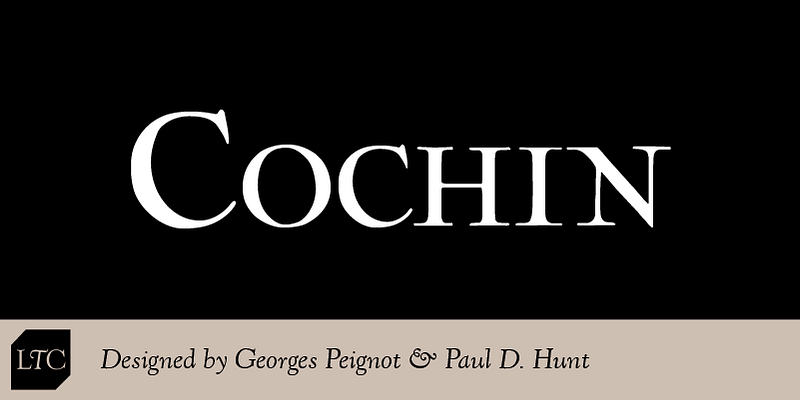
LTC Nicholas Cochin Pro Font Free Download is an elegant, timeless serif typeface that combines classic style with contemporary functionality. Featuring flowing curves and distinctive letterforms, this font is perfect for projects requiring sophistication, such as high-end branding, editorial design, invitations, luxury packaging, and more.
LTC Nicholas Cochin Pro Font Free Download brings a touch of refinement and class to your typography with its well-balanced proportions and smooth, elegant strokes. Its graceful, traditional design makes it ideal for projects that seek to evoke a sense of luxury, professionalism, and quality.
The font works beautifully in both large display settings and smaller body text, making it versatile for use across a variety of design applications, from headlines to detailed articles.